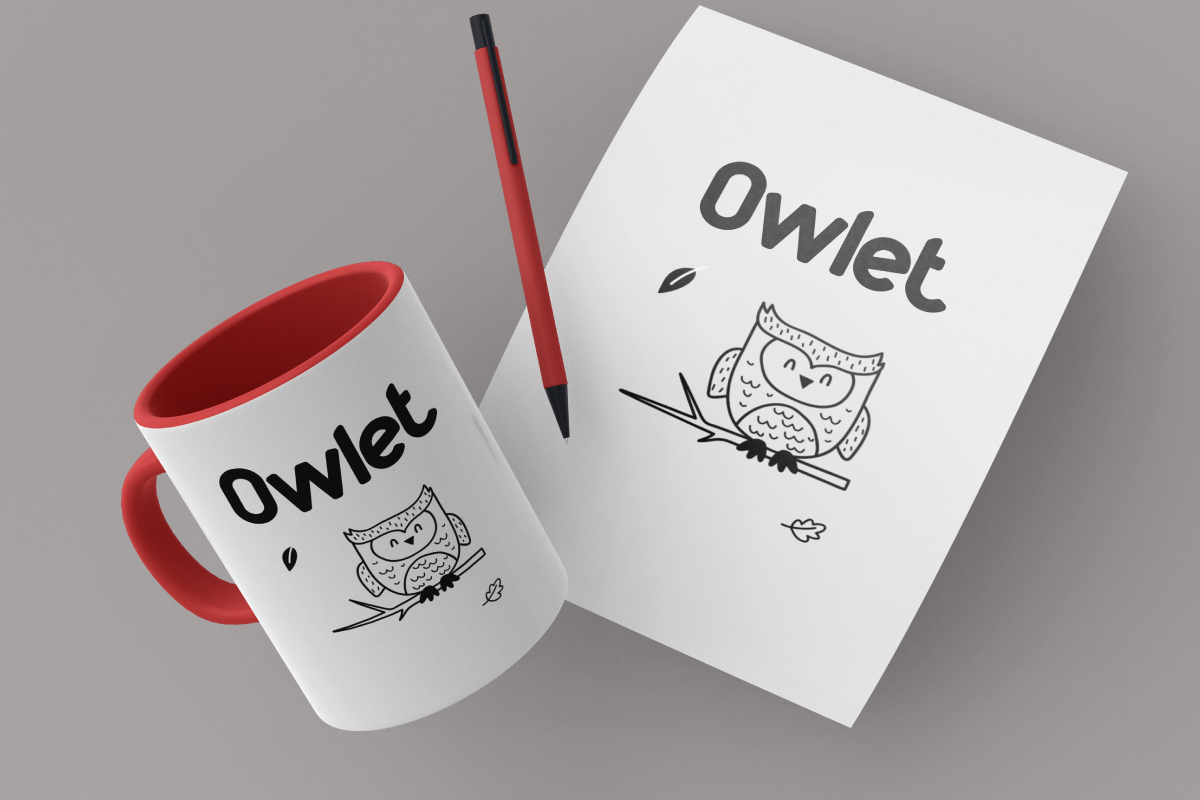
Play & Learn Font
Play & Learn Sans Serif Font
This is a sans serif display font with clean and simple style. This font is carefully crafted on each letter so we can make sure it looks good and delivers the perfect base case. Carefully designed to work together in harmony. This one should make your designs instantly professional and jaw-dropping!
Play & Learn Font includes full set of Uppercase and Lowercase Basic Characters, Numerals and Punctuation. This font has two different styles: Regular and Italic, will be perfect for your extraordinary projects. Play & Learn will be great for fashion, food and drink, kids, school etc